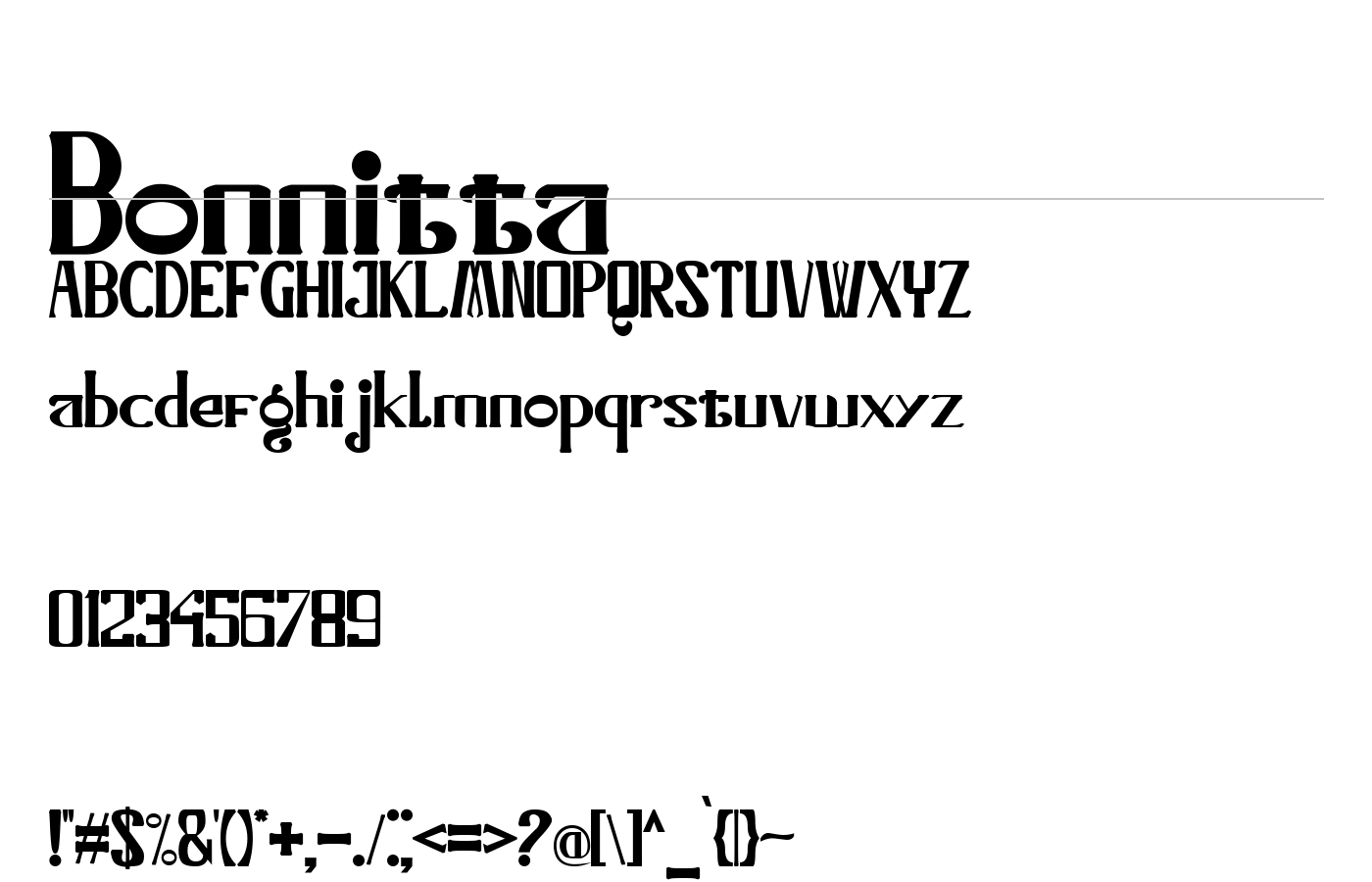
Bonnitta is a unique serif font featuring a condensed, tall structure with high stroke contrast and sharply angled, decorative serifs that give it an artistic, almost gothic flair. Its mix of traditional serif elements with quirky, stylized letterforms makes it perfect for vintage-inspired branding, striking headlines, and creative editorial designs that want to stand out with personality and elegance. This font excels in projects that seek a bold, dramatic impact with a touch of craftsmanship and sophistication.
Bonnitta Font